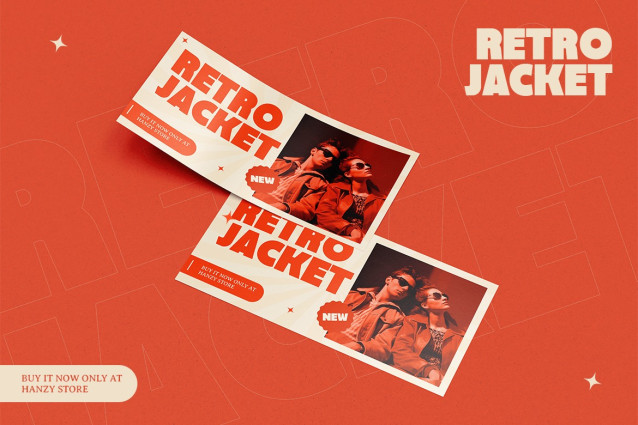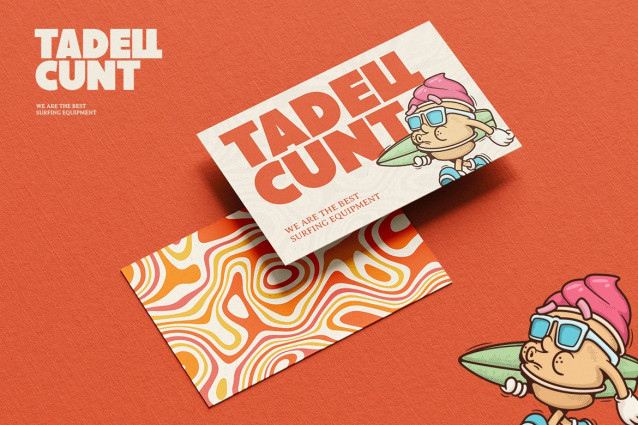
Crizco Font
Crizco Font is a vibrant and playful retro sans serif font that brings a blast from the past to your designs. Inspired by classic vintage aesthetics, this typeface is perfect for adding a touch of nostalgic charm and fun to any project.
With its bold, clean lines and distinctive rounded edges, Crizco offers excellent legibility while exuding a unique personality. It comes in both uppercase and lowercase letters, providing versatility for various design applications, from prominent headlines to engaging body text.
But the fun doesn’t stop there! Crizco also includes a complete set of numeric characters (0-9), ensuring you have everything you need for crafting eye-catching dates, prices, or any numerical information. What truly sets Crizco apart are its alternate characters (M, C, K, X, Y), offering stylish variations that allow for even more creative expression and unique typographic lockups.